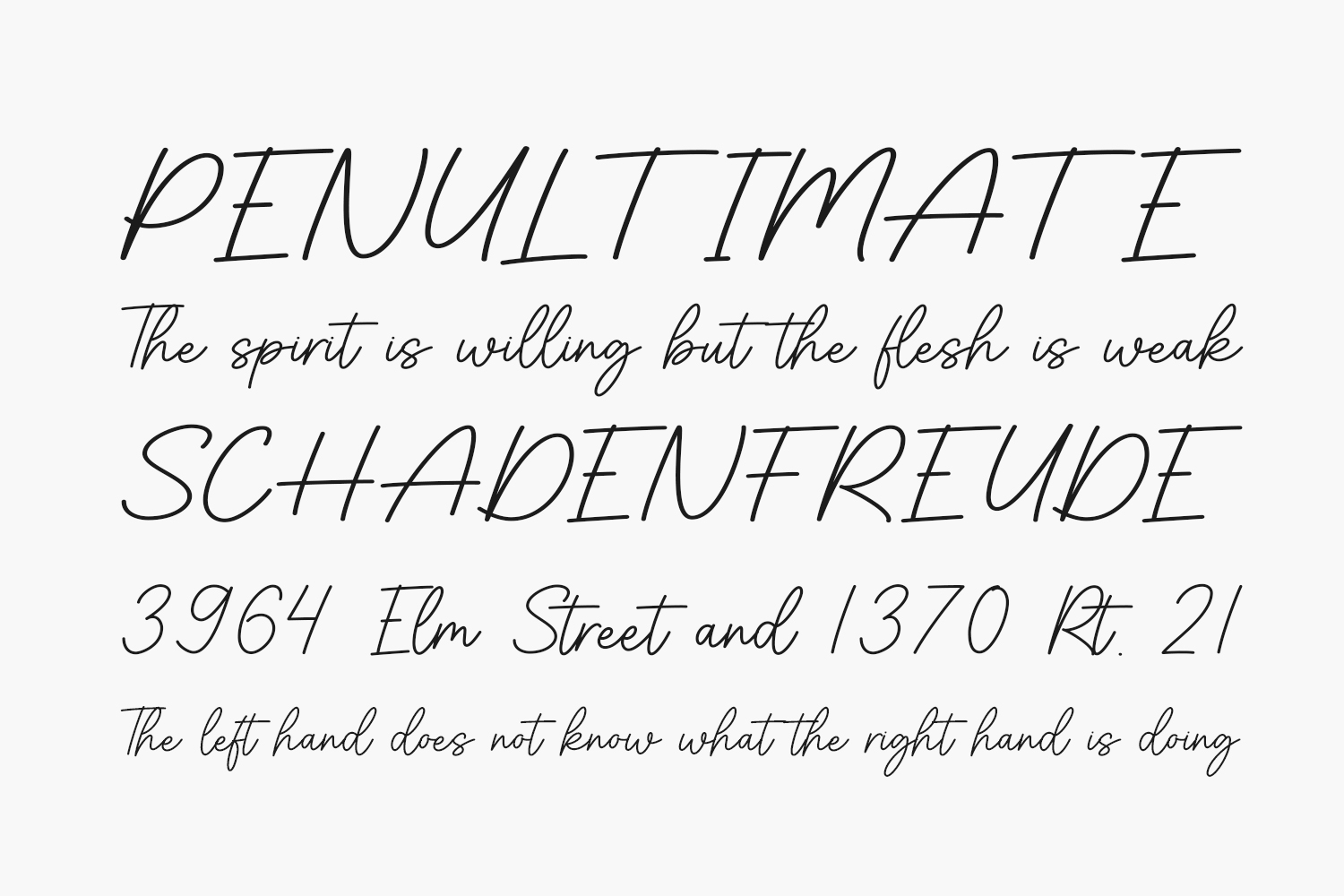
Introducing Keep Dancing Free Font, a joyful and elegant script font that exudes playfulness and grace. With its trendy and stylish design, this font has the power to elevate all of your creative endeavors to new heights. Embrace the charm of Keep Dancing and watch your creations shine with unparalleled beauty. Keep Dancing Free Font is free for personal use only. Please purchase the full version for commercial use.
Designed by Graphix Line Studio